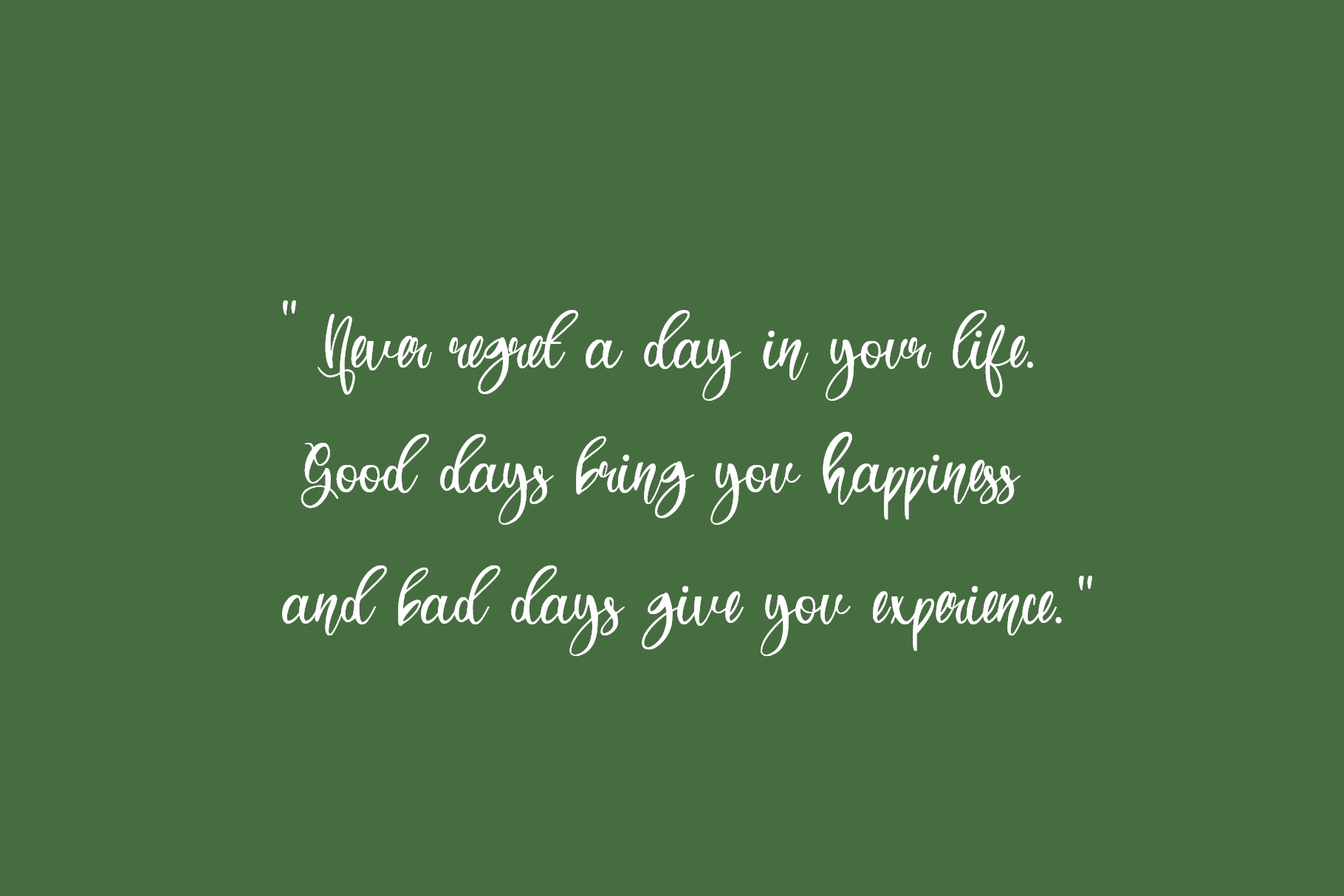
Luckily Font
Luckily Script Font
It’s a very fun yet elegant script font with lots of energy, allowing you to create beautiful handcrafted typography. This font is perfect for logos, printed quotes, invitations, cards, product packaging, headers, and anything else you can imagine.